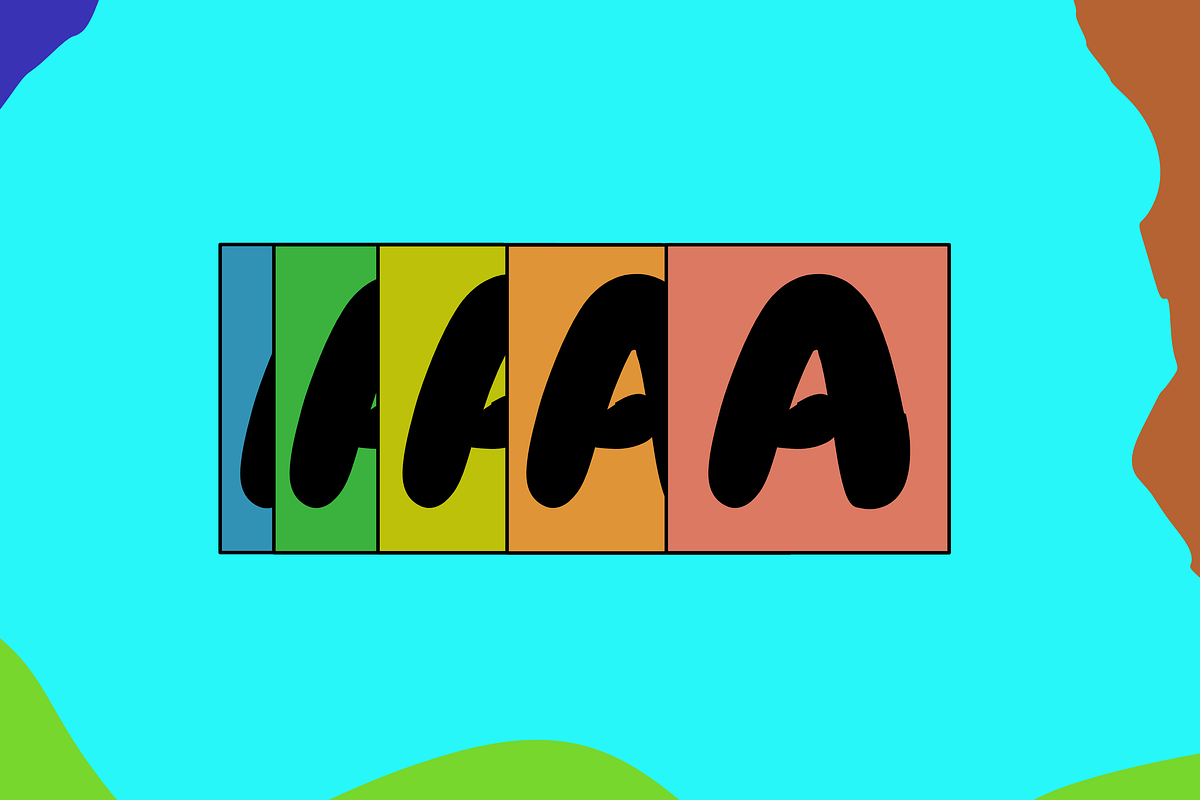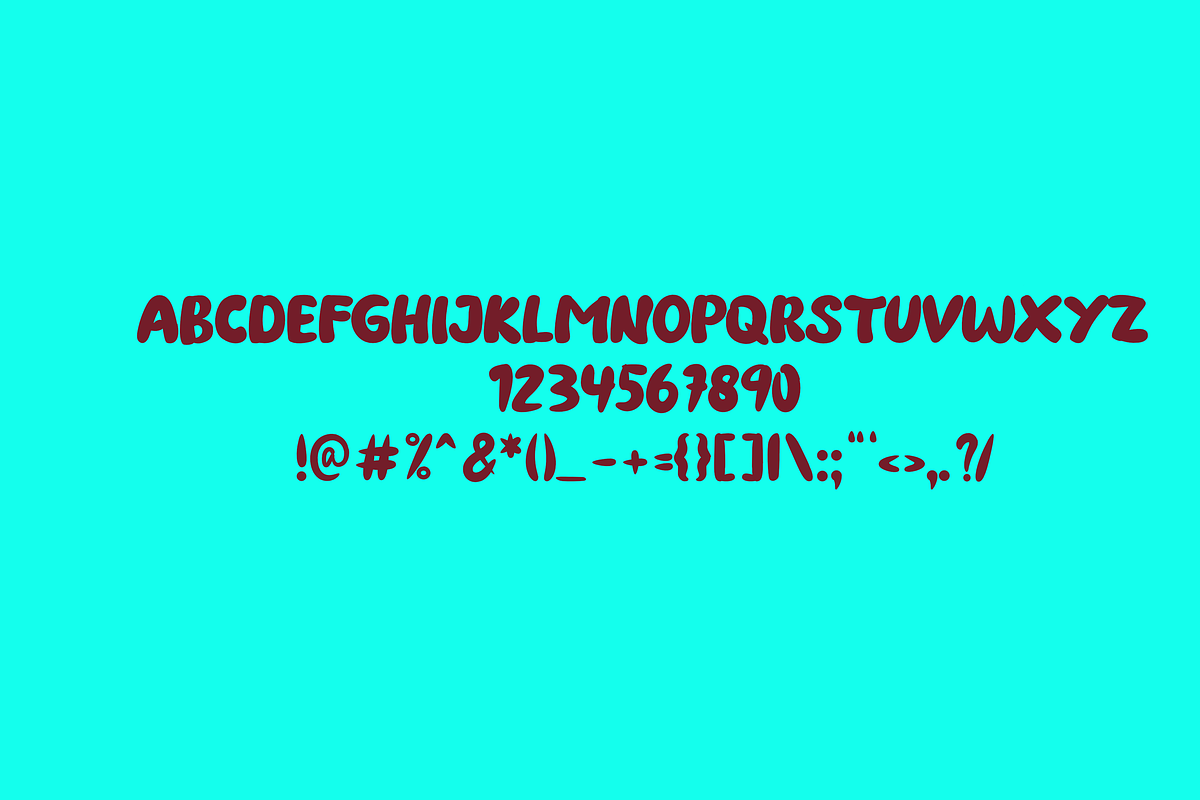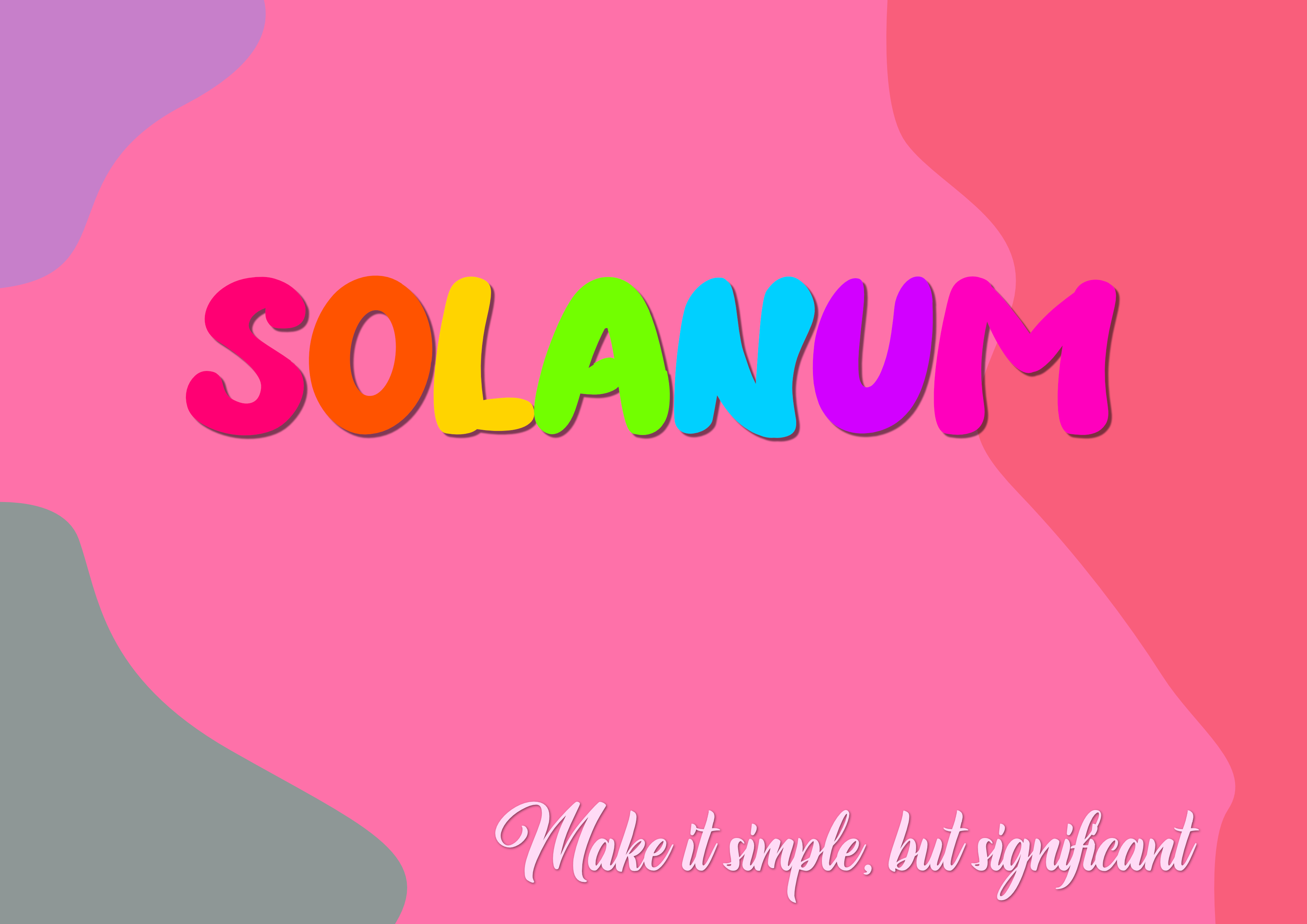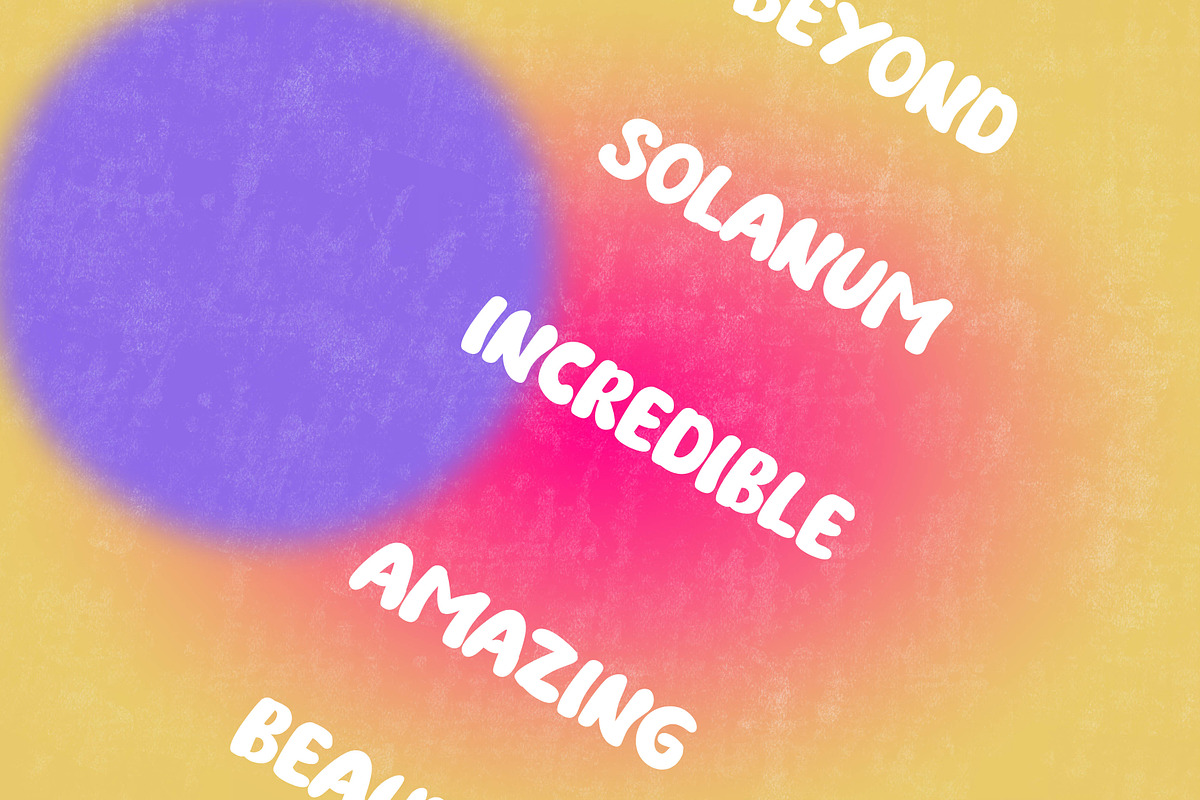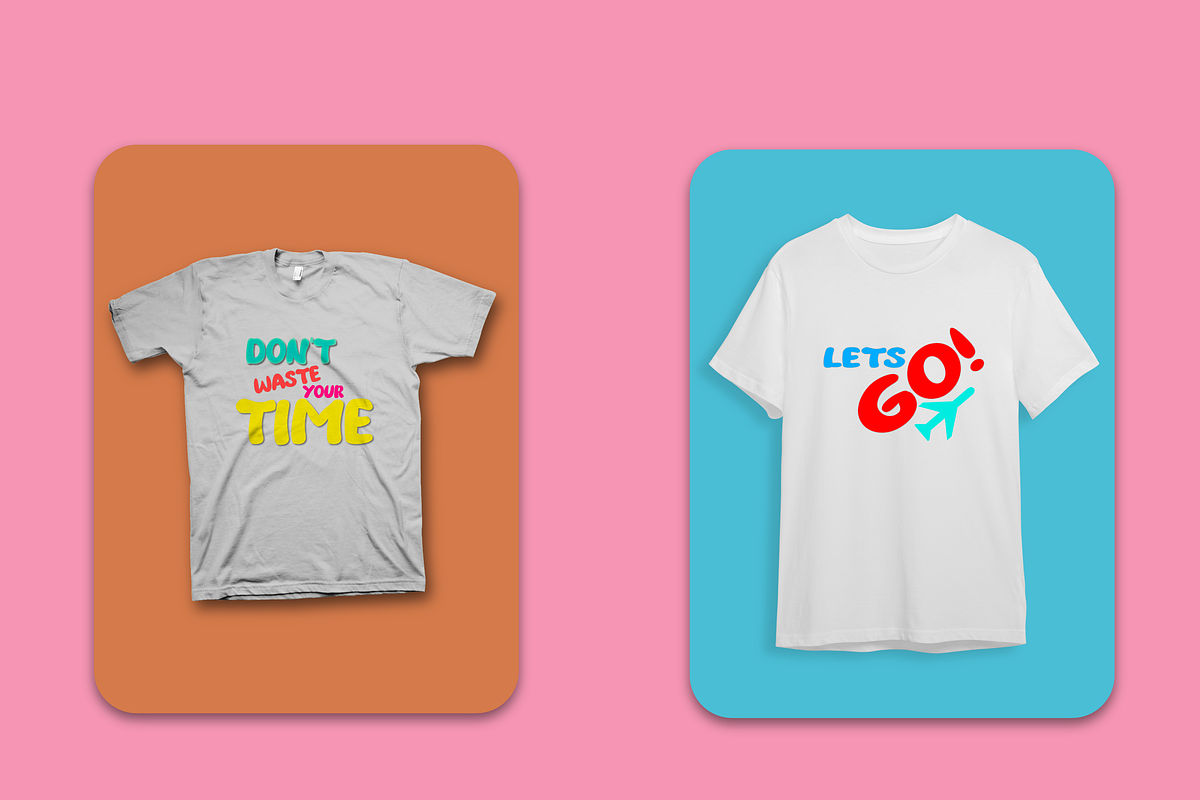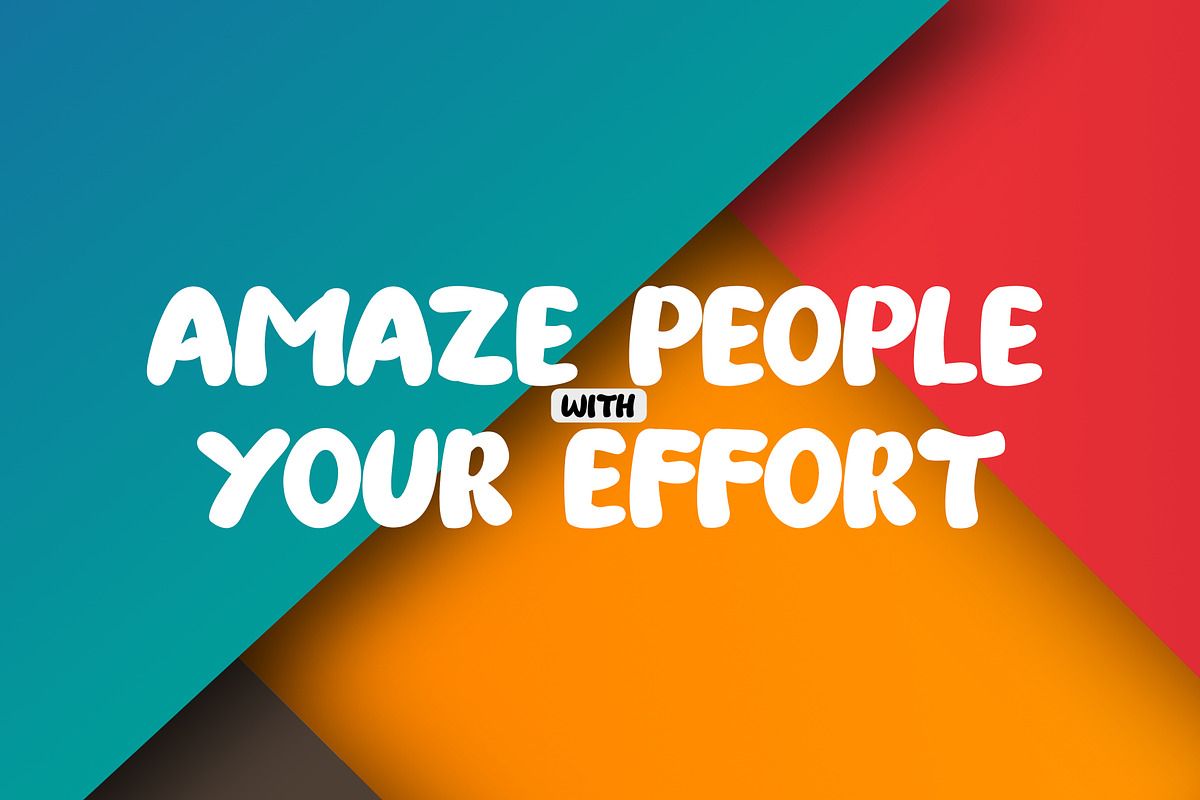
Solanum | Playful Font Display
Solanum is an playful & unique font with special alternative letters and with multilingual support. Solanum is perfect for logo design, magazine headers, product packaging, branding projects, clothing or simply as a stylish text overlay to any images or websites.